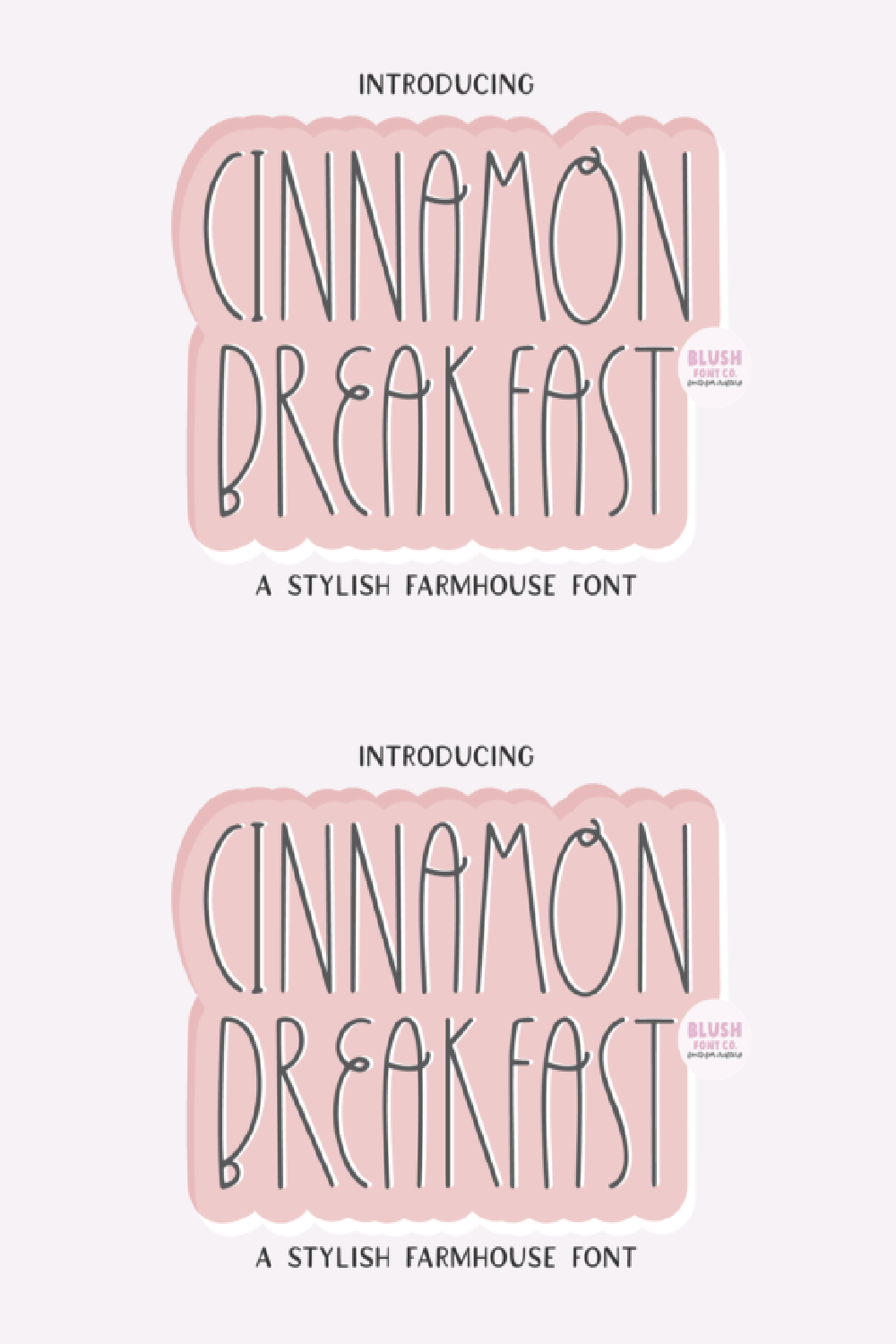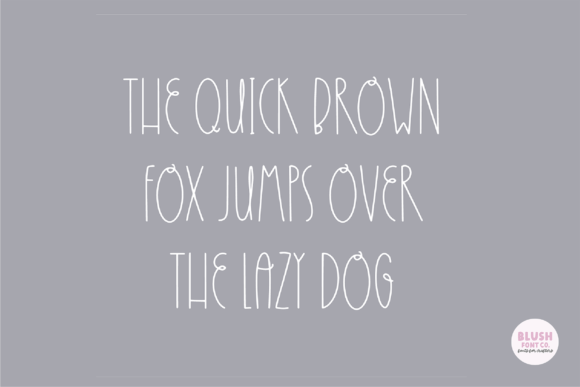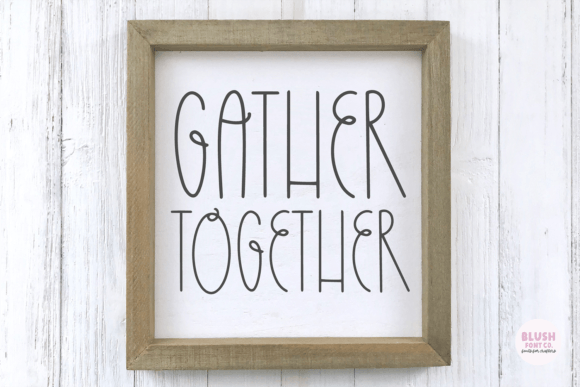
Cinnamon Breakfast Farmhouse Font
About the Cinnamon Breakfast Farmhouse Font
Explore the possibilities with Cinnamon Breakfast Farmhouse Font, a font that offers both beauty and functionality. Cinnamon Breakfast is a tall and skinny decorative font that will complement any script font. It was made with rustic farmhouse signs and the cottage-core aesthetic in mind. This custom-crafted font is perfect for adding a bit of personality and flair to any project.